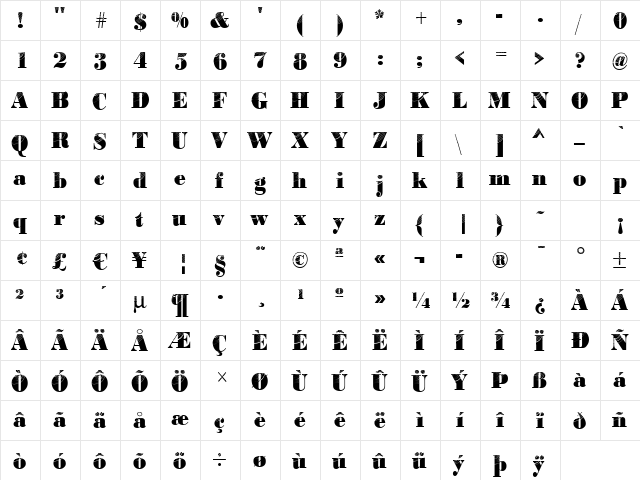
BodoniConcentric2 Regular
Design Context for BodoniConcentric2 Typeface
BodoniConcentric2 is a composed and adaptable typeface that performs quietly and consistently across a wide range of design contexts.